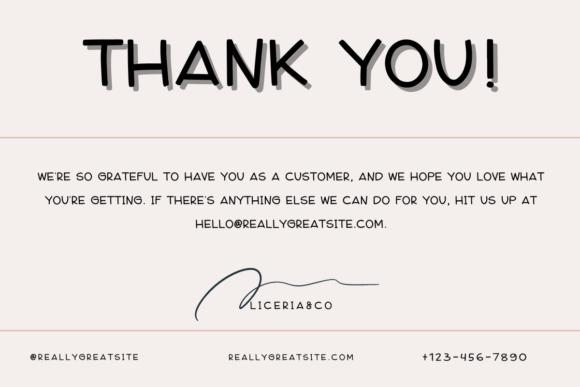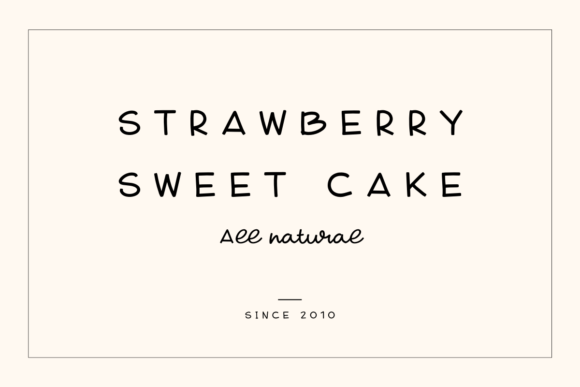
Curly Kale Font
About Curly Kale Font
Curly Kale font is a cute and friendly handwritten typeface designed to add warmth and charm to your creative projects. Its approachable style makes it an ideal choice for a variety of applications, from crafts and digital design to presentations and greeting cards. With Curly Kale, your work will feel personal, lively, and engaging.
Playful and Approachable Design
Curly Kale font features rounded, flowing letterforms that give it a playful and approachable character. Its handwriting-inspired style conveys a natural, casual vibe, making every project feel handcrafted and authentic. This font is perfect for designers who want to add a touch of friendliness and personality to their work.
Ideal for Craft Projects and Digital Use
This font shines in craft-based designs such as scrapbooking, handmade cards, and DIY projects. Additionally, Curly Kalefont works beautifully for digital designs, including social media graphics, presentations, and website elements. It adds a lighthearted and fun mood that resonates well with a wide audience.
Perfect for Greeting Cards and Invitations
Curly Kale font’s charming style is excellent for creating greeting cards, invitations, and thank-you notes. Its friendly tone helps communicate warmth and sincerity, making your messages more heartfelt and memorable. Whether it’s for birthdays, holidays, or special events, Curly Kale brings your sentiments to life.
Versatile and Easy to Use
With excellent readability and a lively feel, Curly Kalefont is highly versatile. It can be paired with other fonts or stand alone to make your designs pop. Whether you’re designing for print or digital media, this font adapts easily to different formats and purposes.
Why Choose Curly Kale Font?
Curly Kalefont offers a perfect blend of cuteness and friendliness that enhances your creative ideas. Its handwritten style invites connection and adds a unique flair to your projects. By choosing Curly Kale, you get a reliable and delightful font that fits many occasions and design needs.
Make Your Projects Stand Out
Add Curly Kalefont to your font collection and see how it transforms your creative work with its playful charm and approachable style. From crafts to presentations, this font is sure to become your new favorite go-to typeface.